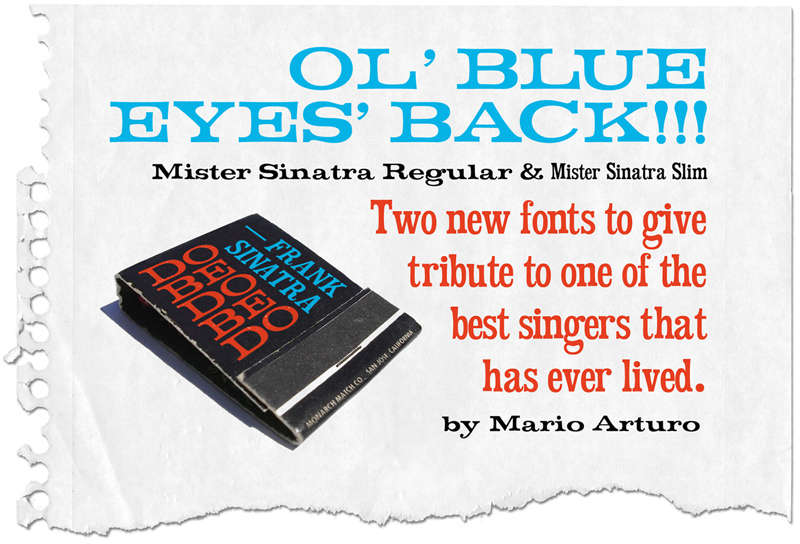
Mister Sinatra Regular
I created the extended version of this typeface based on two words ONE and NINE that I found ina vintage ad ages ago. The slim version came after. I named it after my favorite singer of all times. This font Freeware for personal use. If it is for commercial use then this font is Donationware through PayPal: turoturom@yahoo.es. If you don't have a PayPal drop me a line and we'll come up with something.
I created the extended version of this typeface based on two words ONE and NINE that I found ina vintage ad ages ago. I created the whole alphabet using VOLTA as reference and inventing a few things on my own. The slim version came after. I named it after my favorite singer of all times.